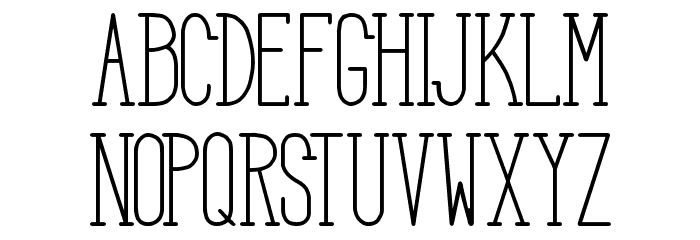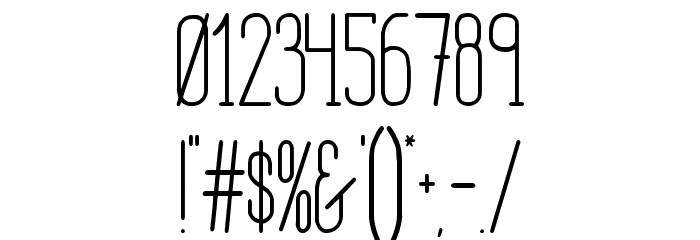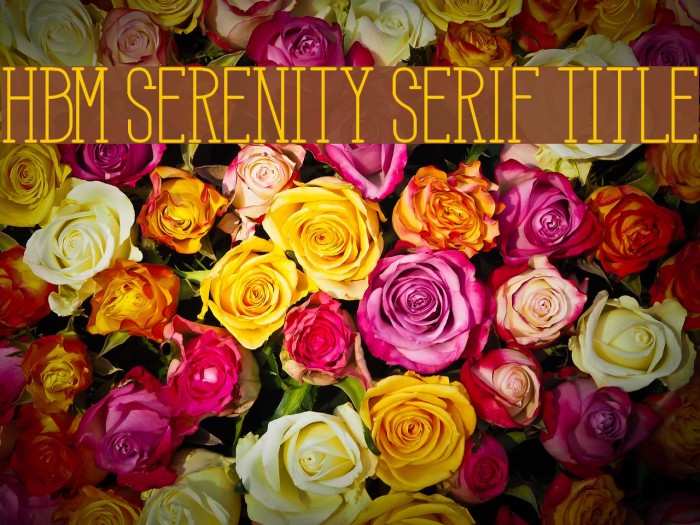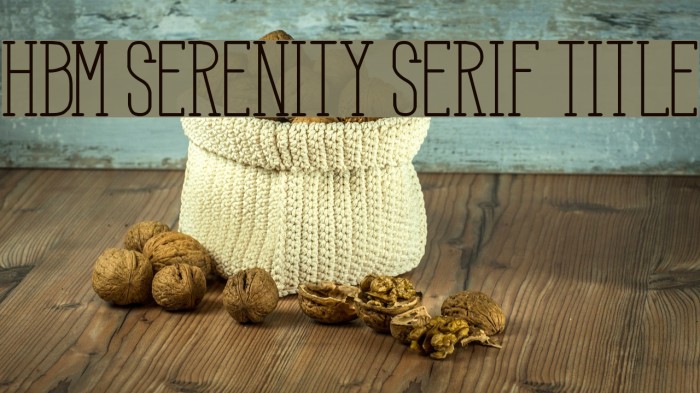
HBM Serenity Serif Title Font
This font features a tall, elegant serif design with a distinct vertical emphasis. The characters are elongated and slender, giving a refined and sophisticated appearance. The serifs are subtle yet pronounced, adding a classic touch to the overall modern aesthetic. The uppercase and lowercase letters maintain a consistent style, with the numerals and special characters complementing the alphabetic characters seamlessly. The font's clean lines and balanced proportions make it versatile for various design applications.
A tall, elegant serif font with a modern and refined style.
- Proposed Projects: Ideal for use in editorial design, book covers, elegant invitations, and branding projects that require a sophisticated touch.
- Use Case: Headlines, Logos, Editorial design